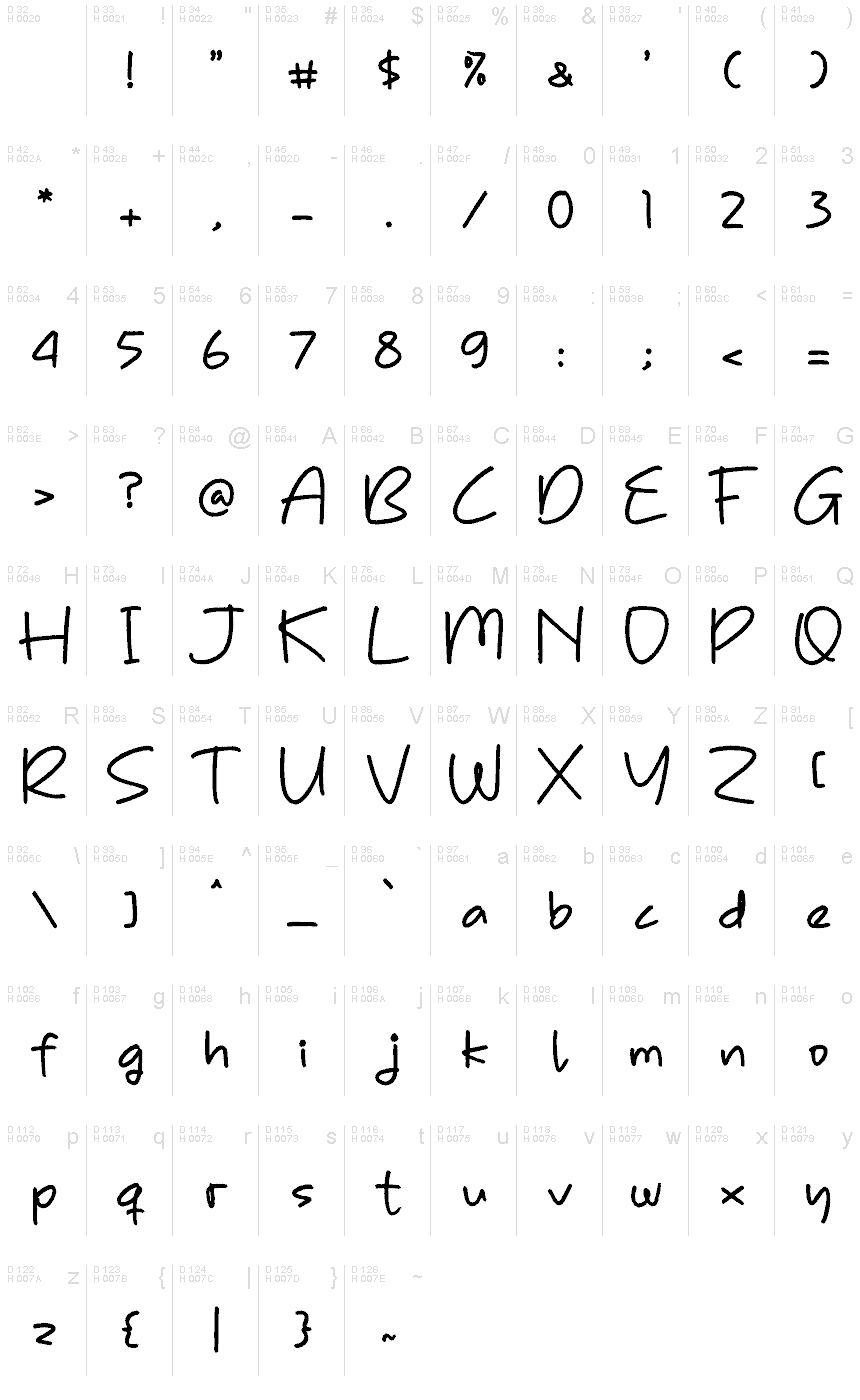
Night Paper font by Letterena Studios is a light handwritten font with a unique expressive flair. It is casual with a modern touch and an approachable aesthetic that enhances the page it inhabits and is able to evoke an overall relaxed mood.